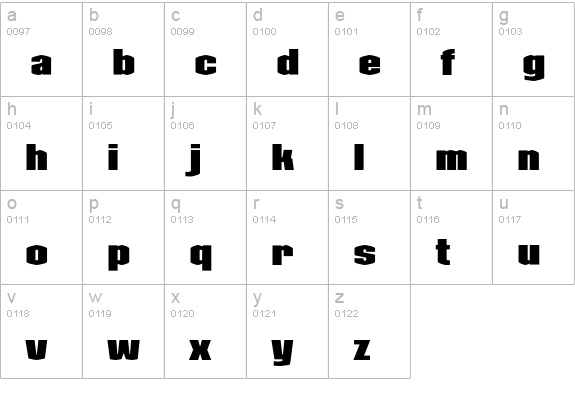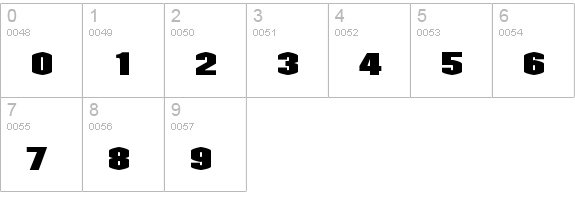
CollosBlack Font Details
CollosBlack font is a striking display typeface that exudes elegance and modernity. Its bold and sophisticated design makes it perfect for a wide range of projects, from branding to editorial design. The sharp edges and sleek lines of CollosBlack font give it a contemporary feel that is sure to make your text stand out. What sets CollosBlack font apart is not only its stylish appearance but also the fact that it is completely free to download. That's right, you can enhance your designs with this stunning font without spending a dime. Simply head over to FontsMarket.com to access this versatile typeface and incorporate it into your projects with ease. Whether you're working on a poster, website, or any other creative endeavor, CollosBlack font will add a touch of sophistication and flair. Download it today and elevate your design game with this exceptional free font.